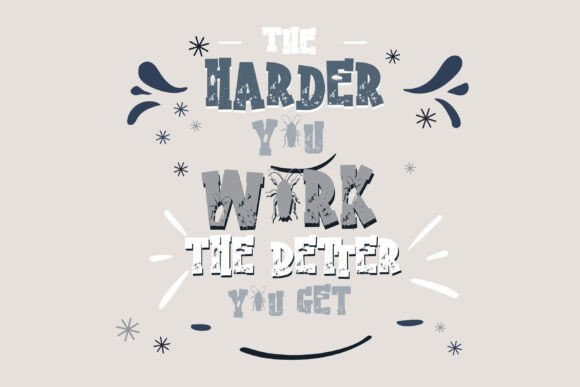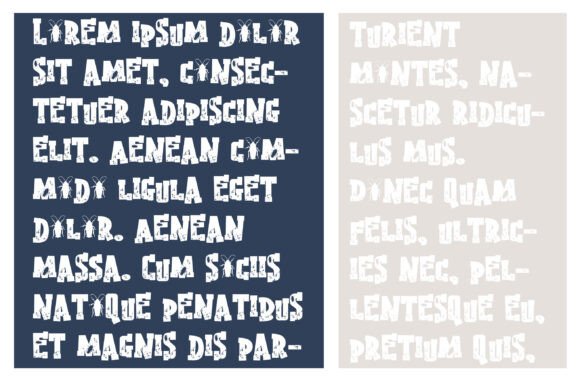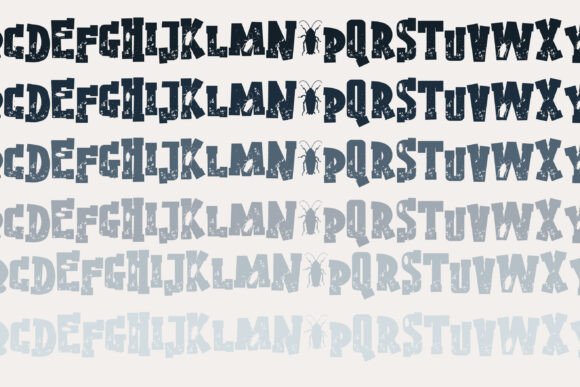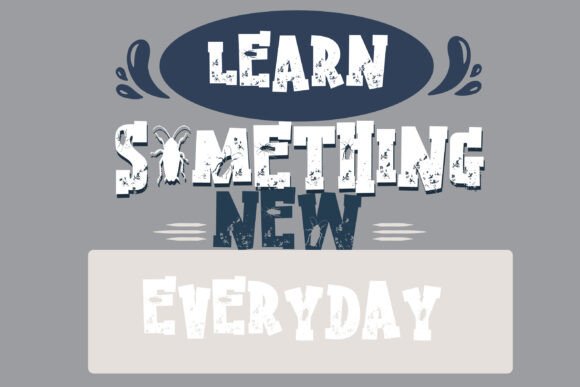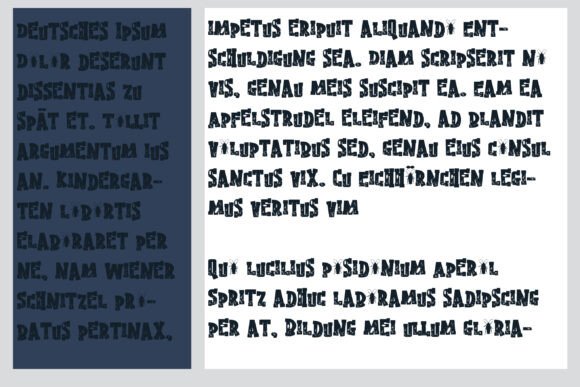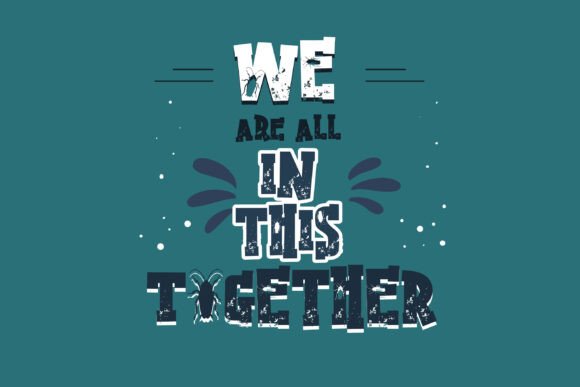
Cockroach Serif Font: A Unique Hand-Crafted Typeface with a Grungy Twist
In the world of typography, fonts play a crucial role in conveying the tone and personality of a message. For designers and crafters, finding the perfect font can make all the difference in creating a visually appealing and effective design. One font that has been making waves in the design community is the Cockroach Serif Font, a hand-crafted serif font that sports lots of texture, grunge, and, yes, cockroaches.
A hand-crafted font, also known as a handwritten font, is a typeface that is designed to look like it was written by hand. This type of font is often used for invitations, greeting cards, and other items where a personal touch is desired. Handwritten fonts can be either formal or informal, and they can be used for a variety of purposes, from elegant wedding invitations to playful DIY projects.
Hand-crafted fonts are typically characterized by their unique and irregular features, such as varying line widths, imperfect letterforms, and a sense of human touch. They are often used to add a personal and emotional connection to a design, making it more relatable and engaging.
Introducing Cockroach Serif Font
Cockroach Serif Font is a unique hand-crafted serif font that stands out from the crowd. As its name suggests, this font features a grungy and textured look, with cockroaches and other imperfections scattered throughout. The font is designed to give your designs a bold and edgy look, perfect for those who want to make a statement.
Despite its unconventional name and design, Cockroach Serif Font is a versatile typeface that can be used for a wide range of projects. Whether you’re designing a logo, creating a poster, or crafting a handmade card, this font is sure to add a touch of personality and whimsy to your work.
Key Features of Cockroach Serif Font
So, what makes Cockroach Serif Font so special? Here are some of its key features:
- Hand-crafted design: Each letterform is carefully crafted to give the font a unique and human touch.
- Serif style: The font features classic serifs, adding a touch of elegance and sophistication to your designs.
- Texture and grunge: The font features a textured and grungy look, with imperfections and cockroaches scattered throughout.
- Versatile: Cockroach Serif Font can be used for a wide range of projects, from formal invitations to playful DIY crafts.
Tips for Using Cockroach Serif Font
Here are some tips for using Cockroach Serif Font in your designs:
- Use it for headings: The font’s bold and edgy design makes it perfect for headings and titles.
- Mix it with other fonts: Pair Cockroach Serif Font with other fonts to create a unique and interesting contrast.
- Experiment with colors: The font’s textured design looks great in a variety of colors, from bold and bright to muted and pastel.
- Add some imperfections: The font’s imperfections and cockroaches are part of its charm, so don’t be afraid to leave them in your design.
Cockroach Serif Font is a unique and versatile hand-crafted serif font that is sure to add a touch of personality and whimsy to your designs. With its textured and grungy look, imperfections, and cockroaches, this font is perfect for designers and crafters who want to make a statement. Whether you’re creating a formal invitation or a playful DIY project, Cockroach Serif Font is a great choice.